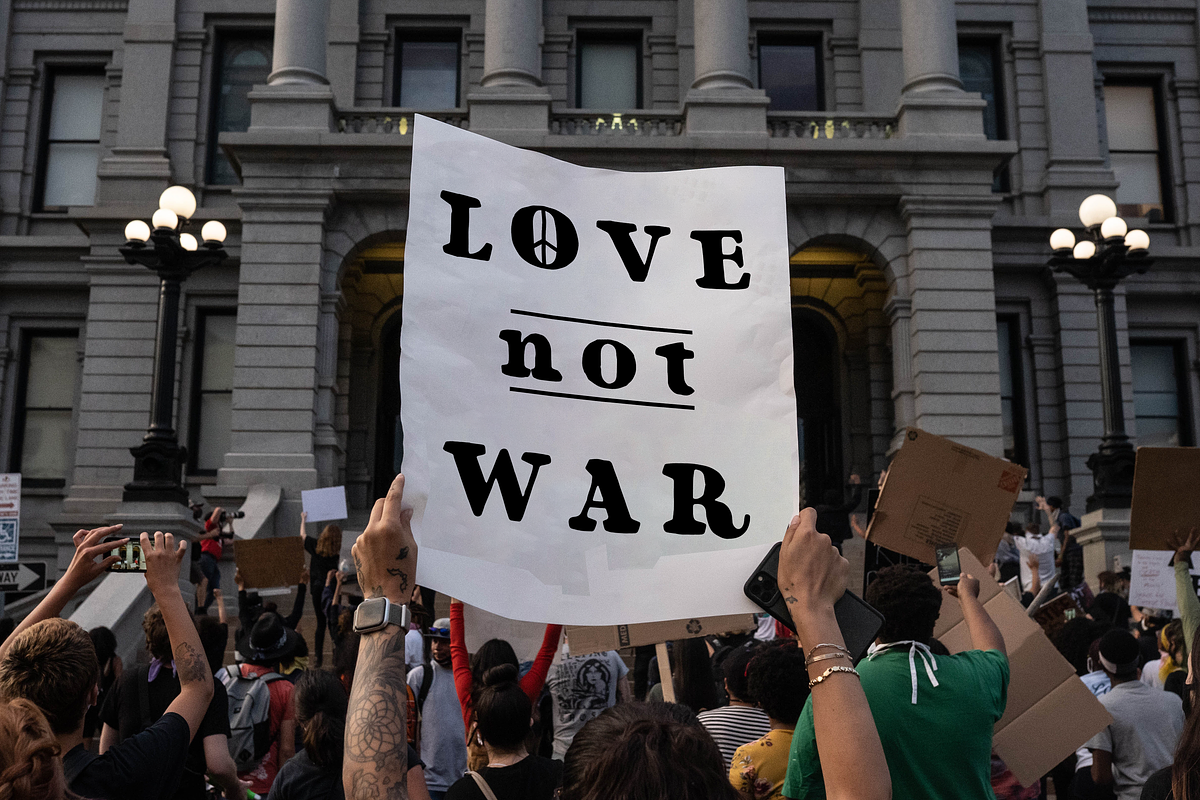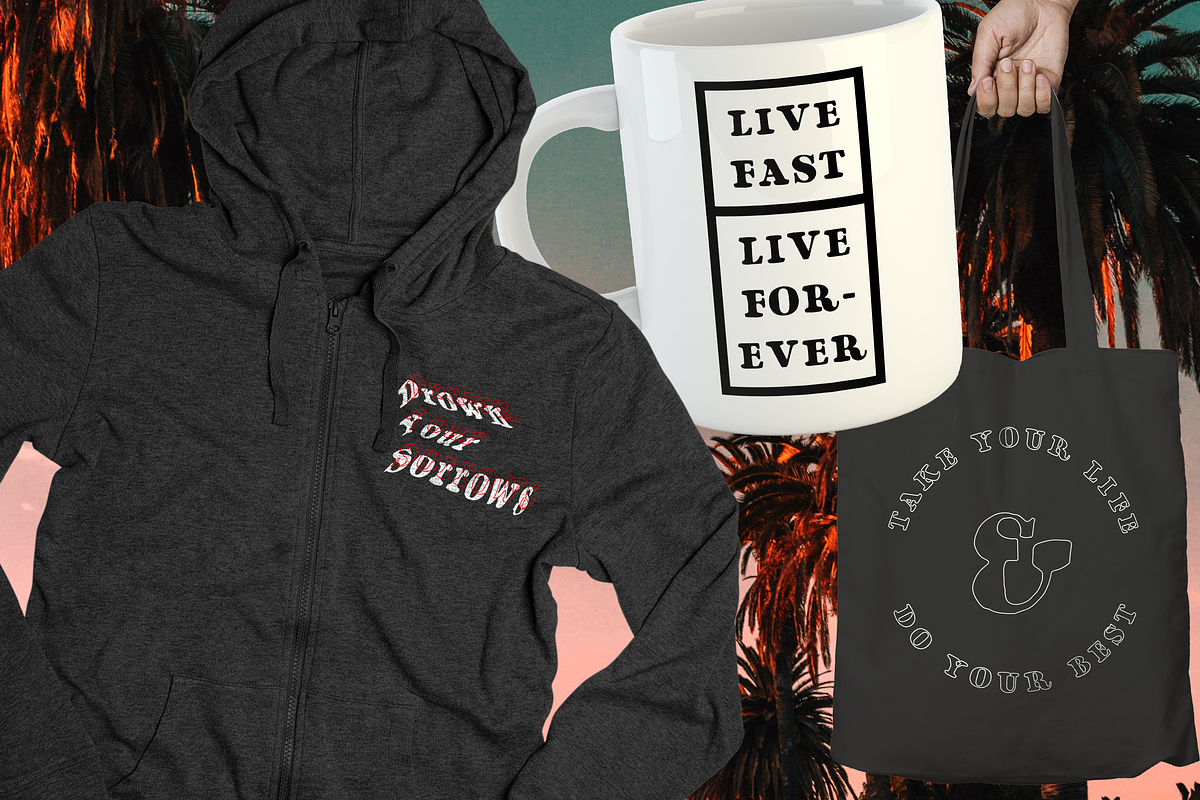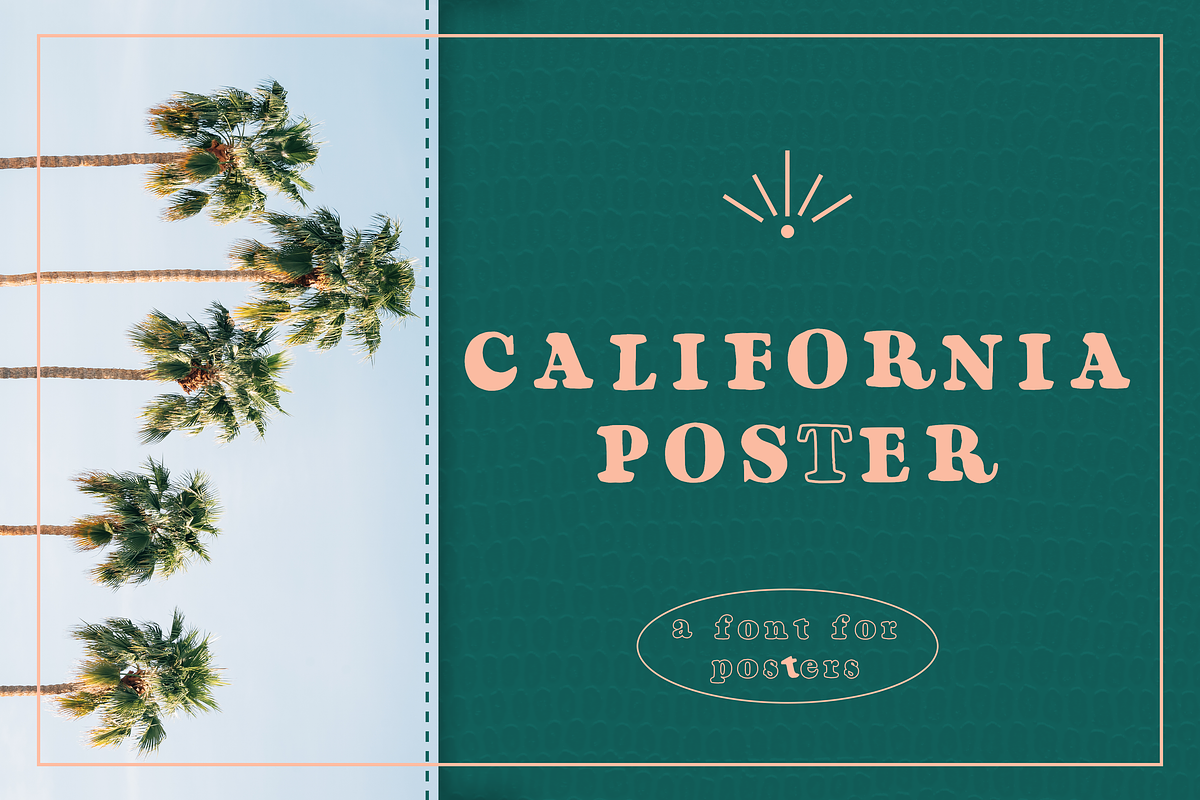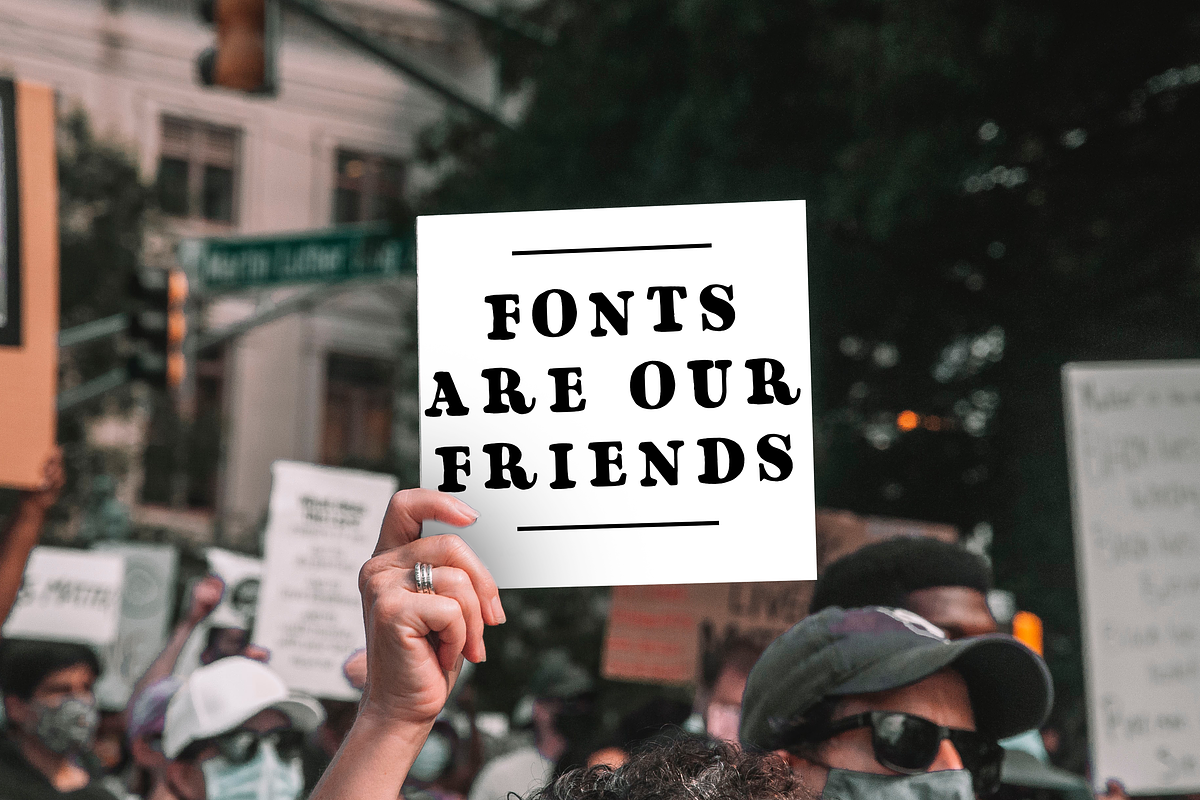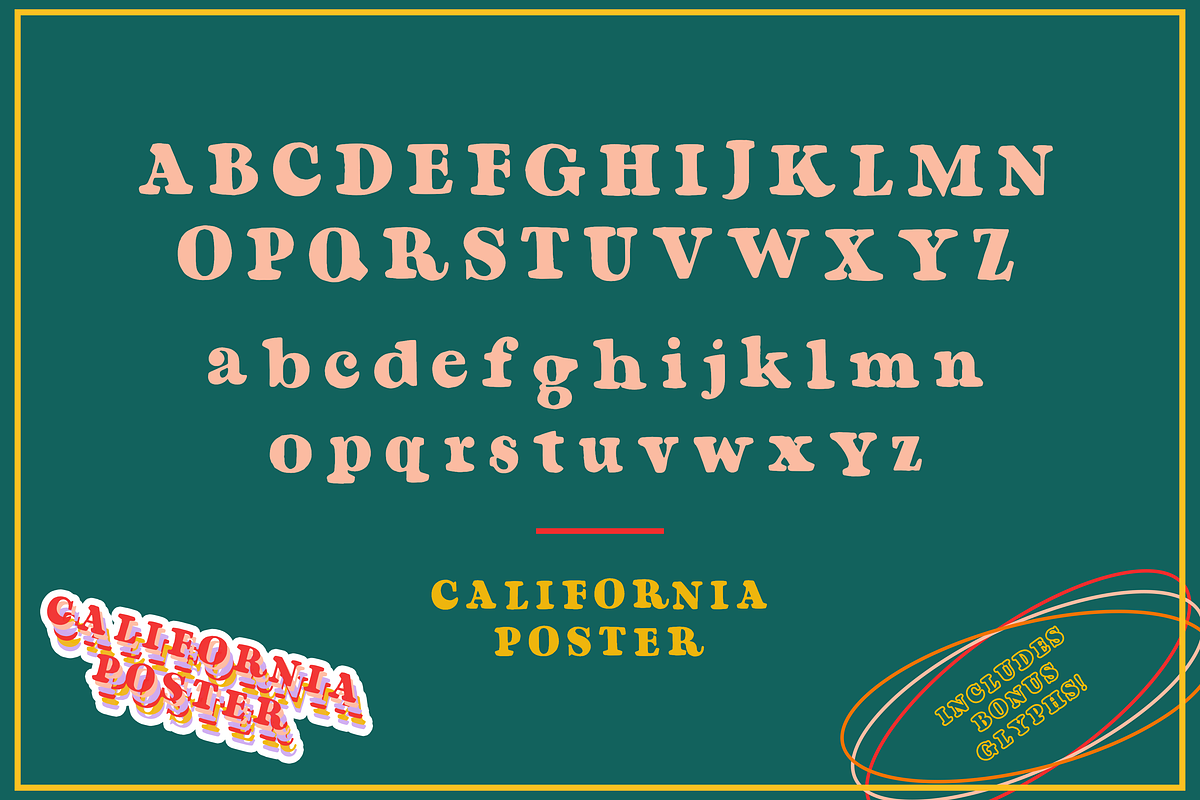
California Poster - A retro font
Here's a rustic, retro, hand drawn version of Cooper Black for you to play with!
I created this font specifically to design merch for a client who wanted a certain "poster" aesthetic. I ended up just falling in love with it- it has that "California" feel that a lot of my clients are looking for and it's "bold" enough to withstand some stretching and skewing and still be readable. (put it through my Wavy Machine https://creativemarket.com/JeffryMacpherson/3152377-Streetwear-Font-Wavy-Halftone-Effect)